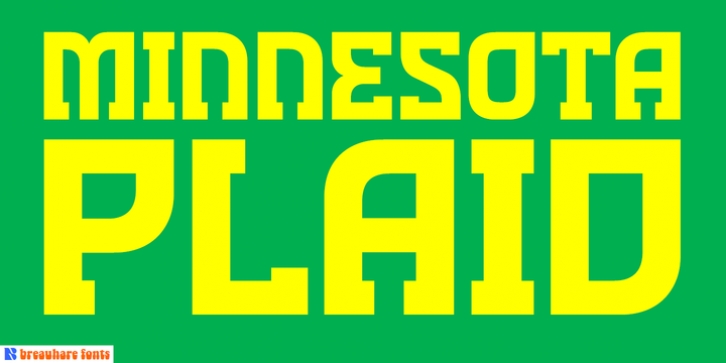
Minnesota Plaid was designed by Harry Warren and published by Breauhare. Minnesota Plaid contains 1 style.
Minnesota Plaid is the baddest plaid ever! It may not be the choice pattern for golfers' slacks or bagpipers' kilts, but it has a City-like flavor with its own twist, a stylish ruggedness & toughness that could even be described as a sort of formal graffiti, thanks to the art deco swash of many of its strokes. It's the kind of look that would be perfectly at home with hip hop or rap music, football and other sports, cars and trucks, power tools, and other manly, masculine usages. Of course, women are just as capable of having the aforementioned interests, too. Minnesota Plaid is the kind of font that can get stuck on you!
Digitized by John Bomparte.